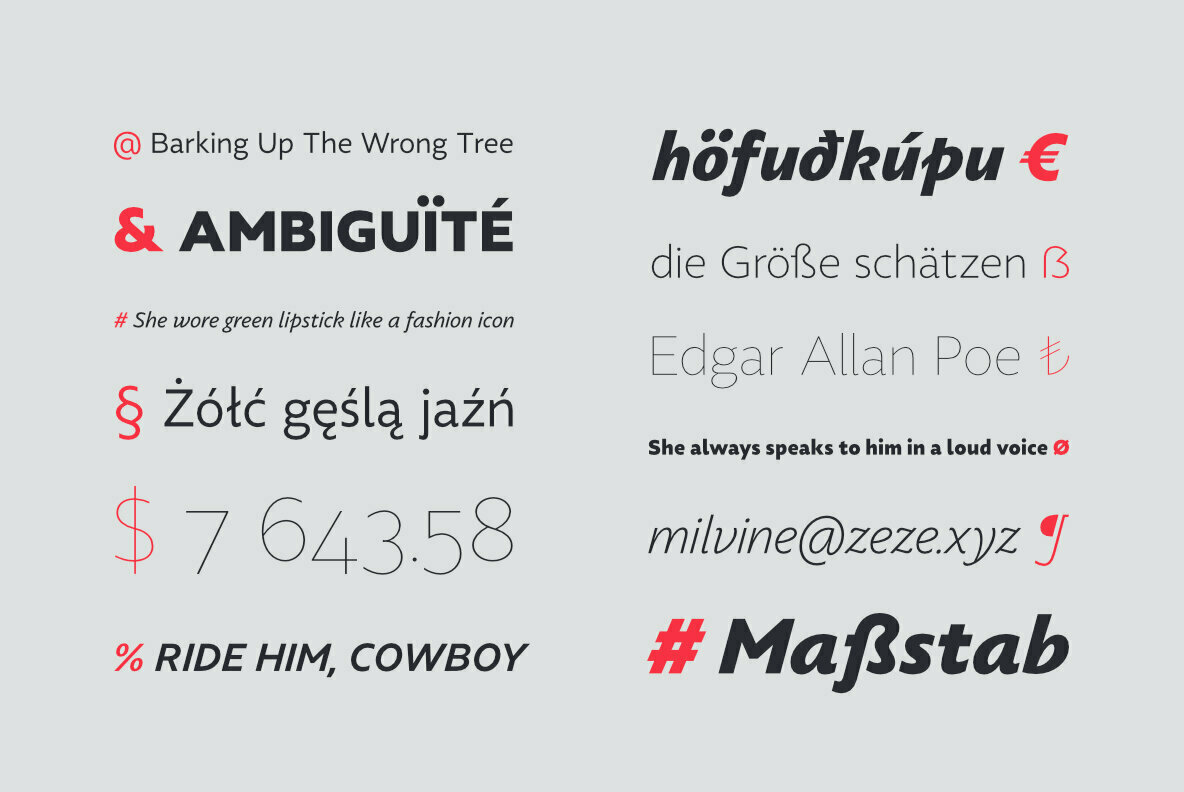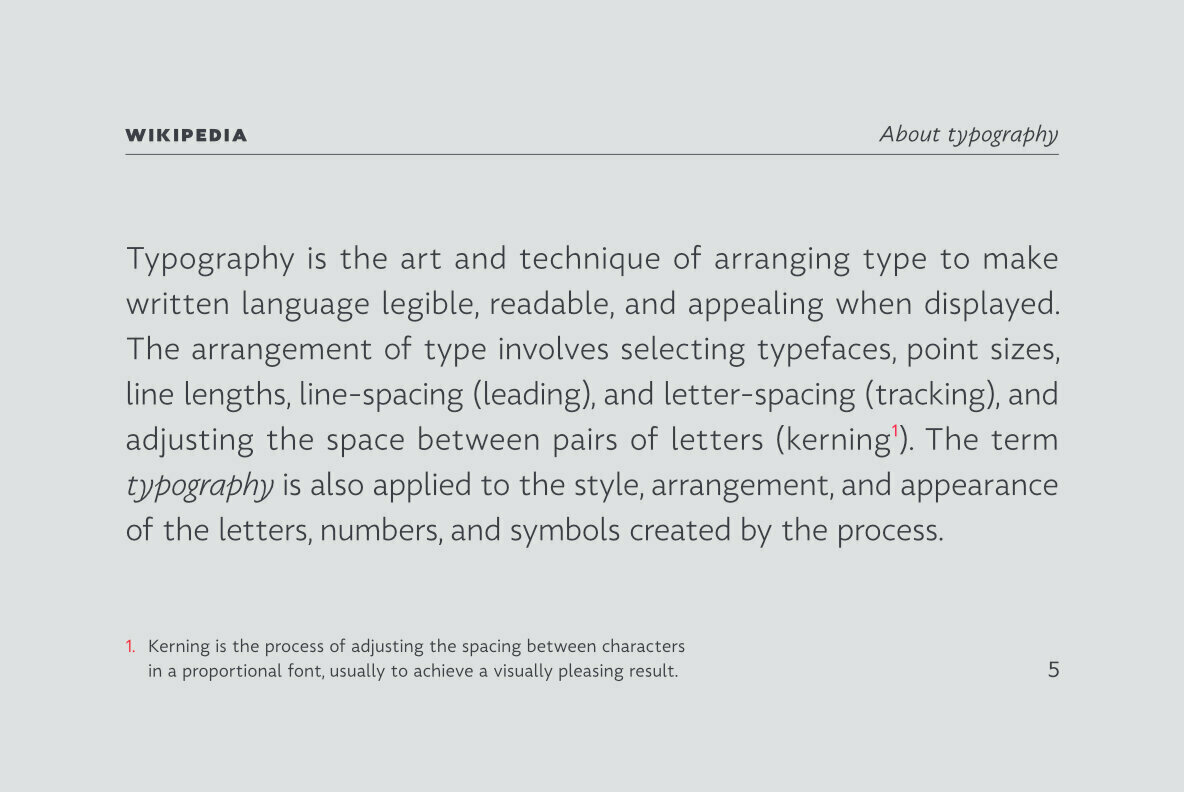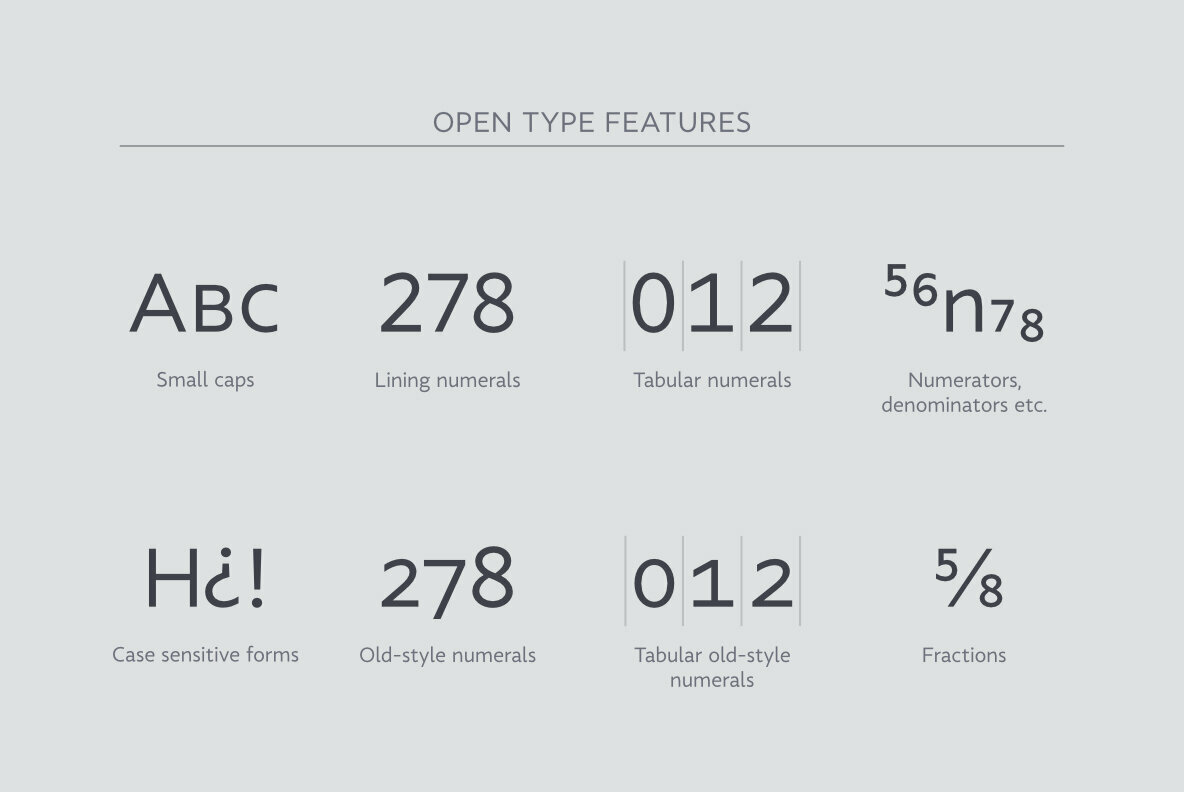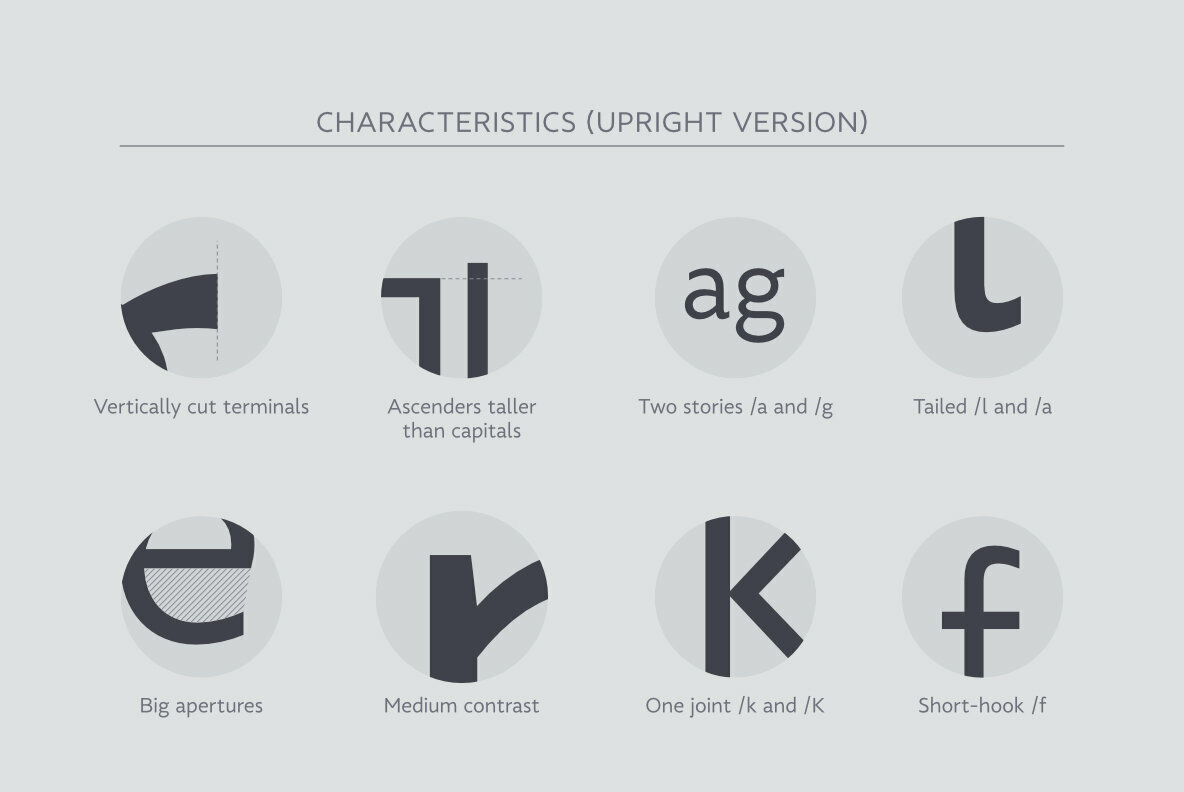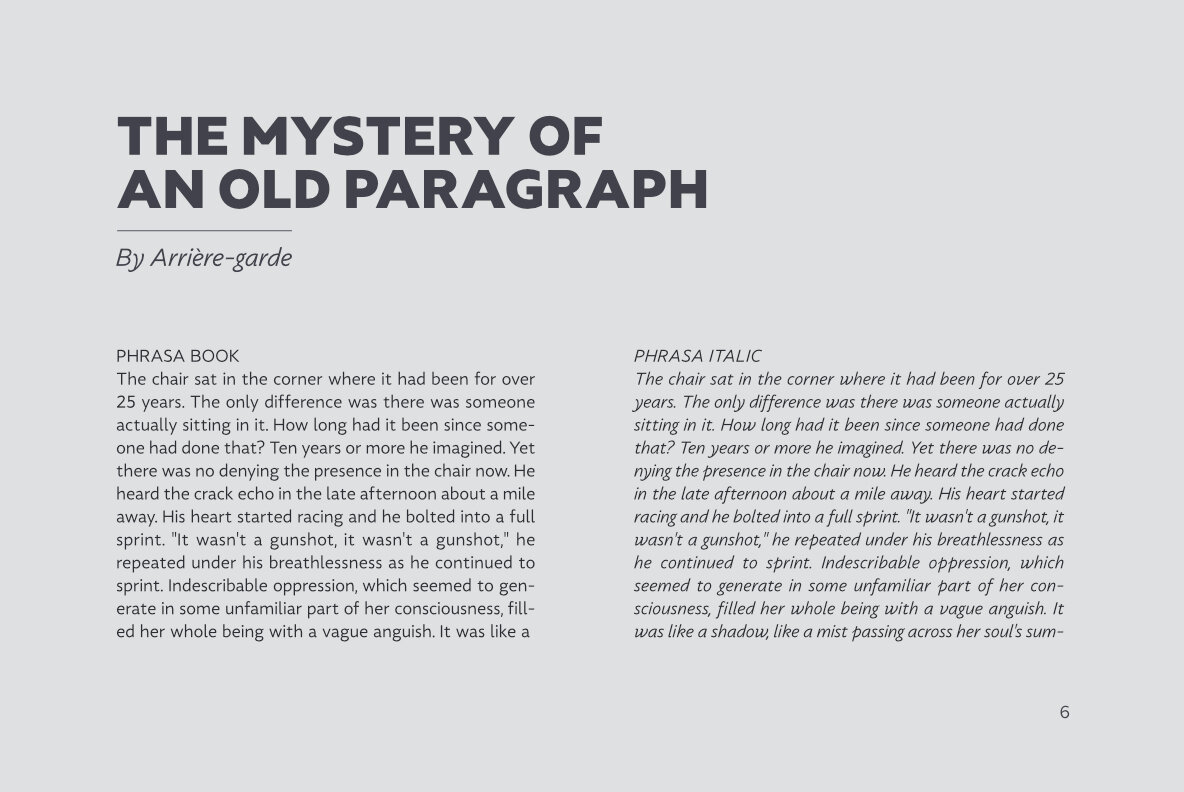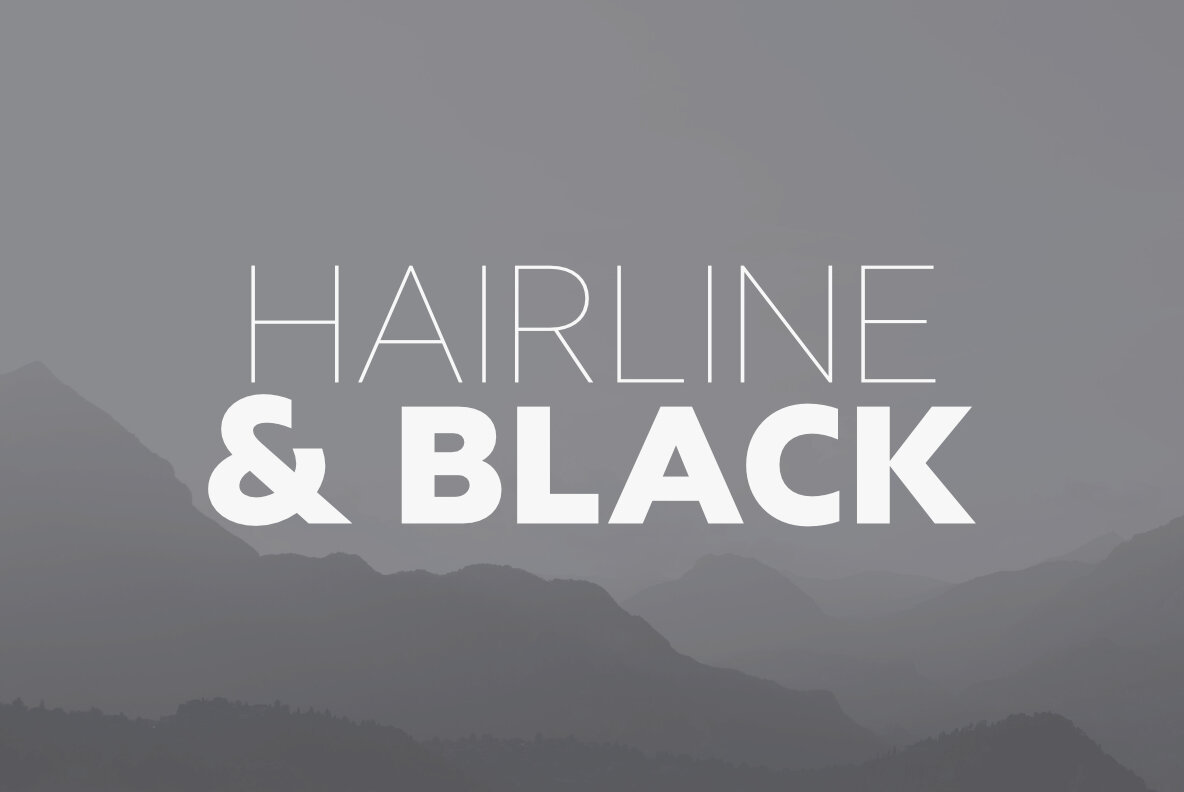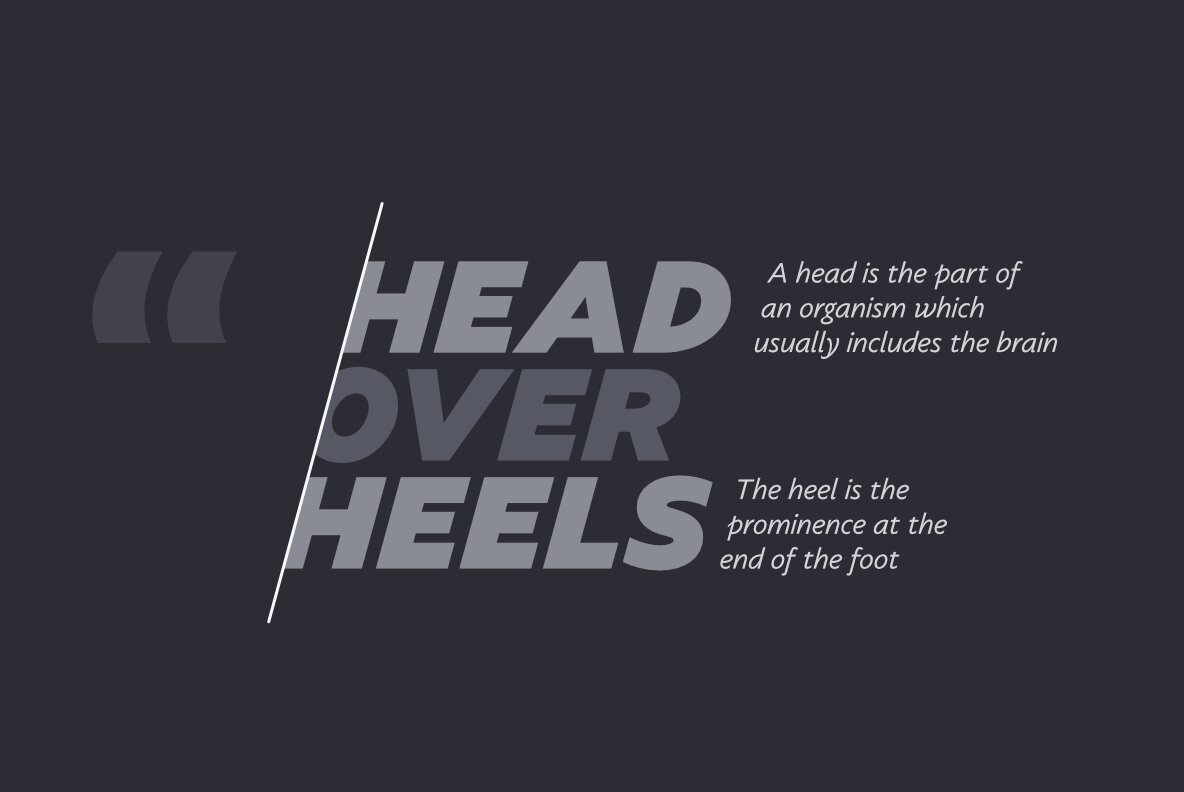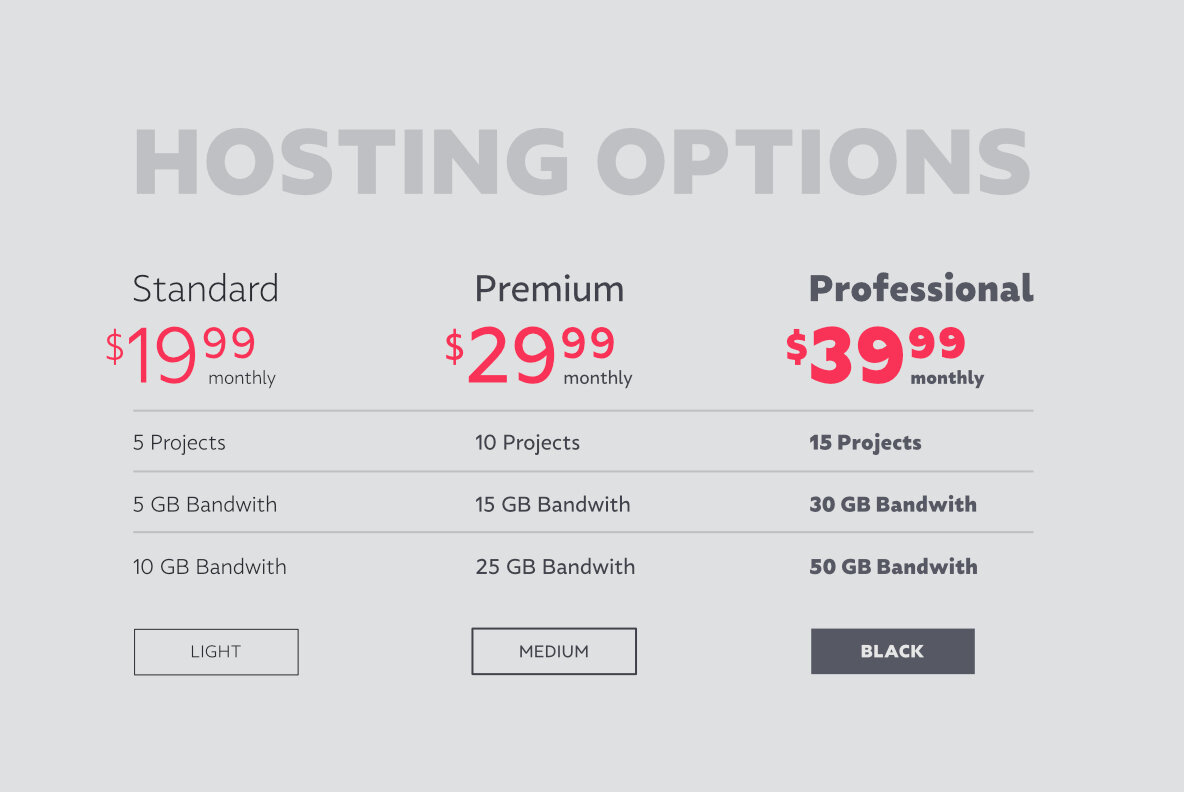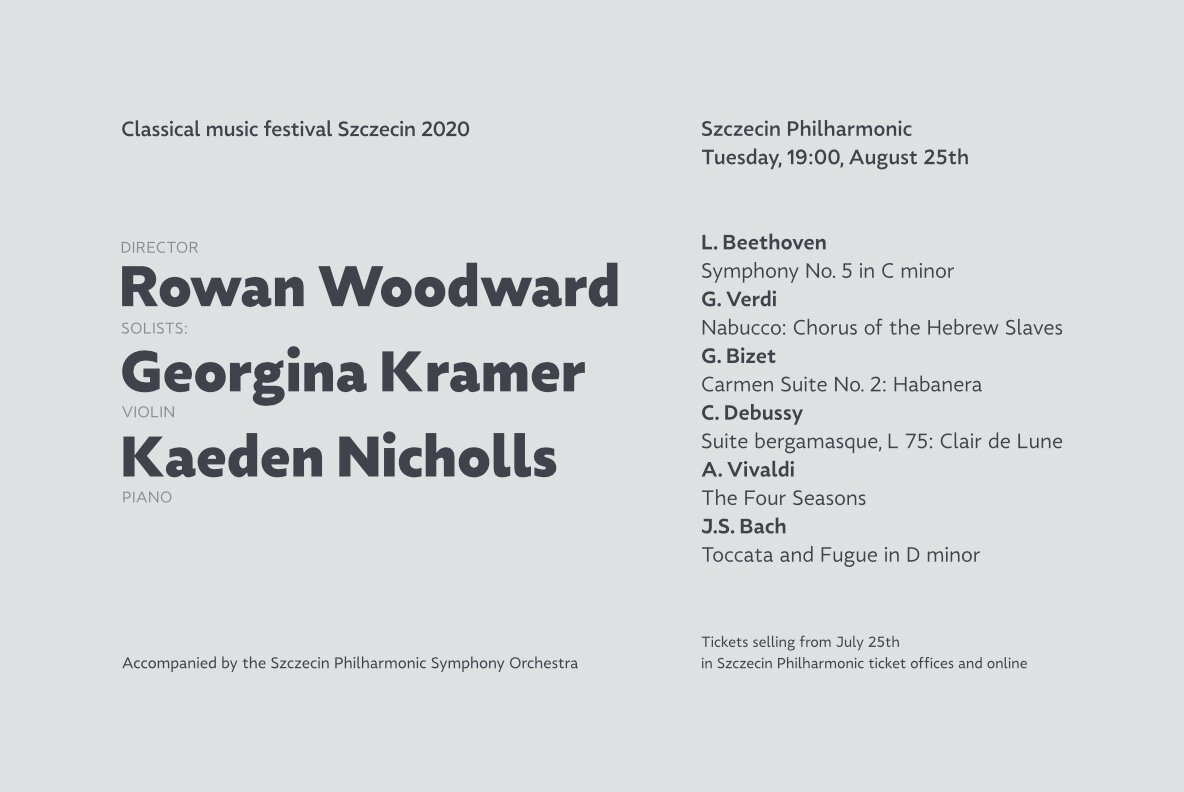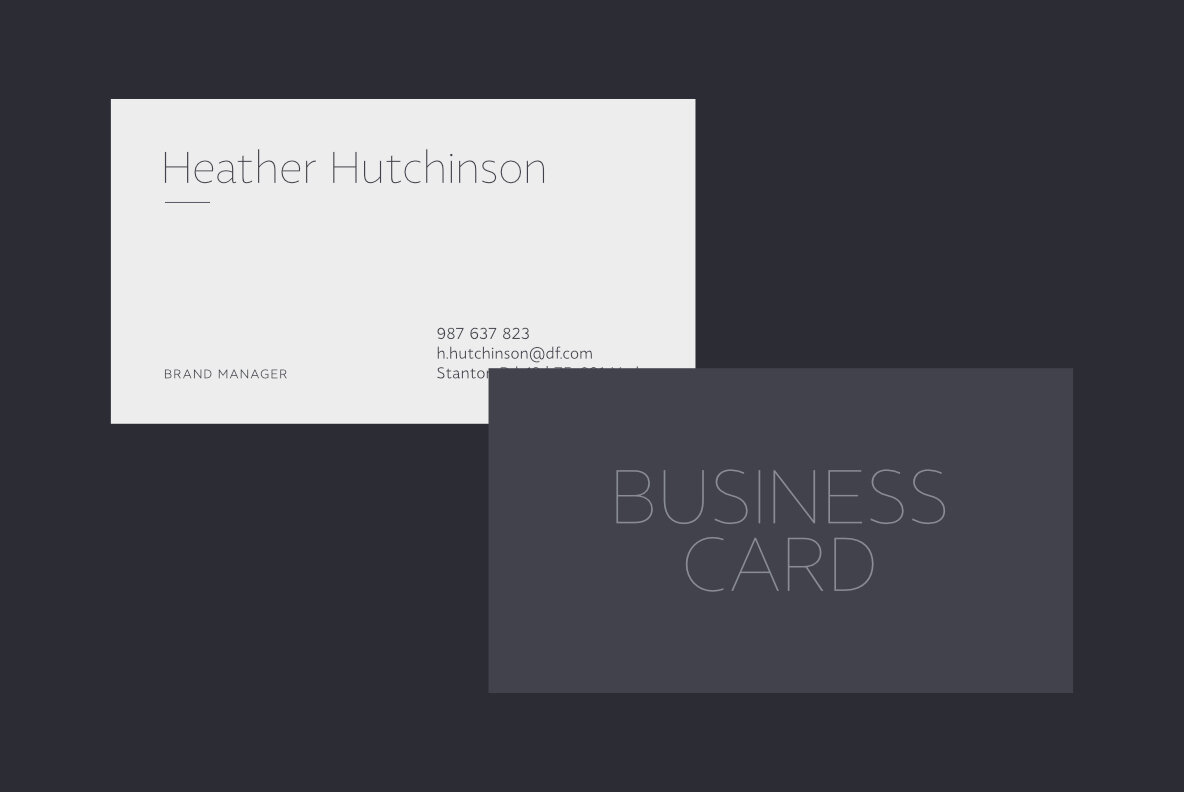
Phrasa Font
Phrasa is a robust humanist sans-serif typeface family which will carry you through most of your design needs. Designed for legibility, she truly shines in running text. However her solid yet elegant construction allows for usage in such settings as branding or signage.
Phrasa's most prominent features are:
- 13 weights, from hairline to black
- Moderate x-height
- Large apertures
- Modern capitals proportions
- Designed for readability without sacrificing good looks
- True Italics
- Small capitals
- Adobe Latin 3 language range
- Old-style and tabular figures
The idea behind Phrasa was to create a stylish typeface but with legibility in mind. First drafts were tested against Frutiger. The typeface performed well, yet she didn’t do so well in paragraph setting. New inspiration was needed. It came from history, namely from two of the most legible typefaces known: Garamond and Gill Sans. After reworking much of the design, the new typeface boasted a smooth, easy-on-the-eyes texture which allowed the reader to simply sink into the text. To compliment this development a set of true italics was added.